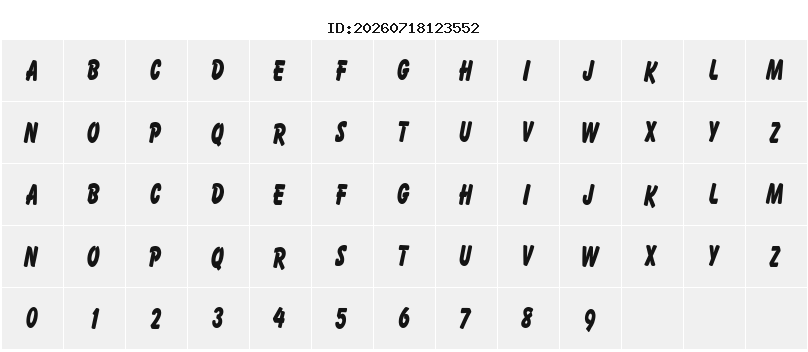
• Font Name: Cartoon Condensed
Cartoon Condensed.ttf is a modern, elegant sans-serif font designed for ultimate readability and visual harmony. Perfect for branding, headlines, web design, and print materials.